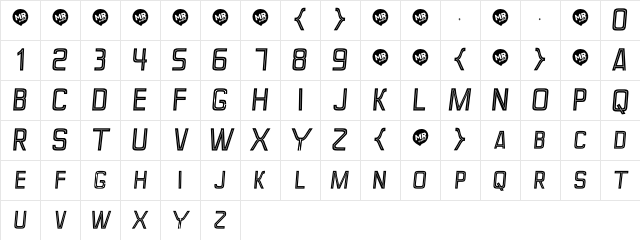
Complete Perforama Italic glyph index. Displaying only characters natively supported by Perforama Italic font.
Perforama is a composed and adaptable typeface that performs quietly and consistently across a wide range of design contexts. The slanted form adds forward momentum and visual energy.
Pro Tip: Use Perforama for emphasis, pull quotes, and subheadings where its slanted energy can add rhythm to the layout.